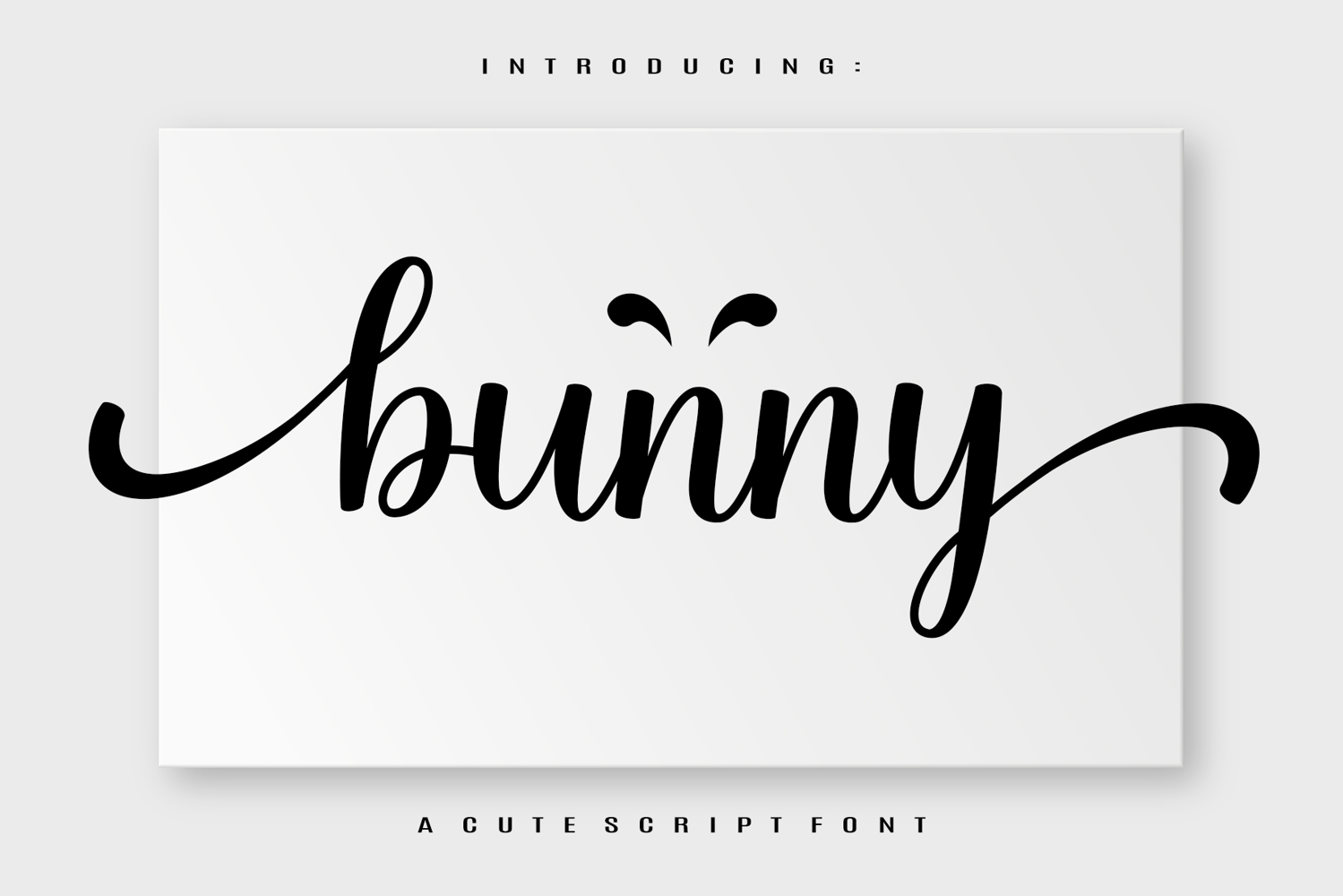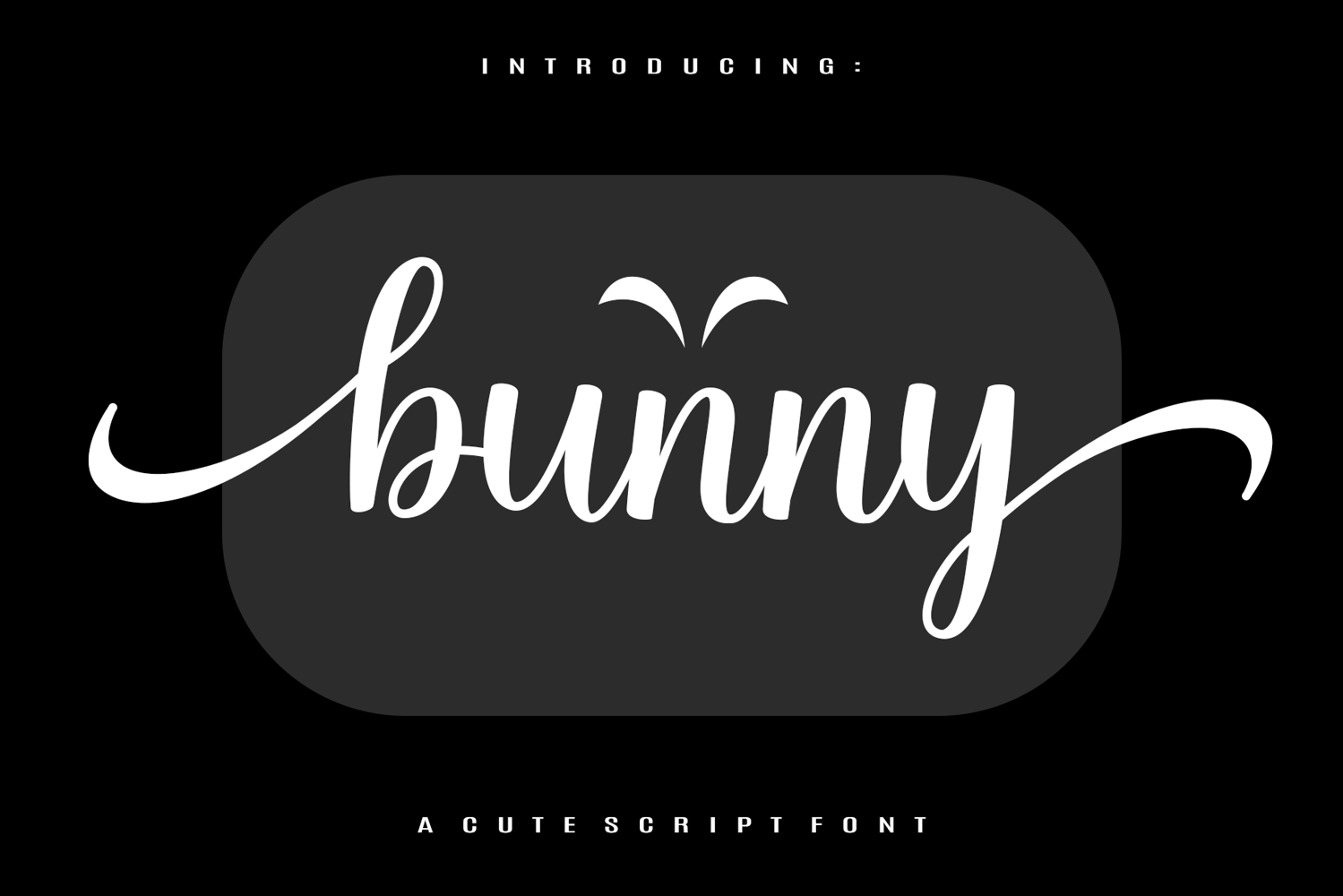
Bunny
Introducing 'Bunny', a whimsically charming handwritten font, thoughtfully designed with playful curves perfectly emulating a bunny's distinctive ears and tail. This endearing, light-hearted typeface brings a serene touch of softness to its design, exuding coziness with its pleasing aesthetic. The 'Bunny' font stands as a unique blend of cuteness and elegance, making it an impeccable choice for a variety of design projects needing a touch of whimsical flair.